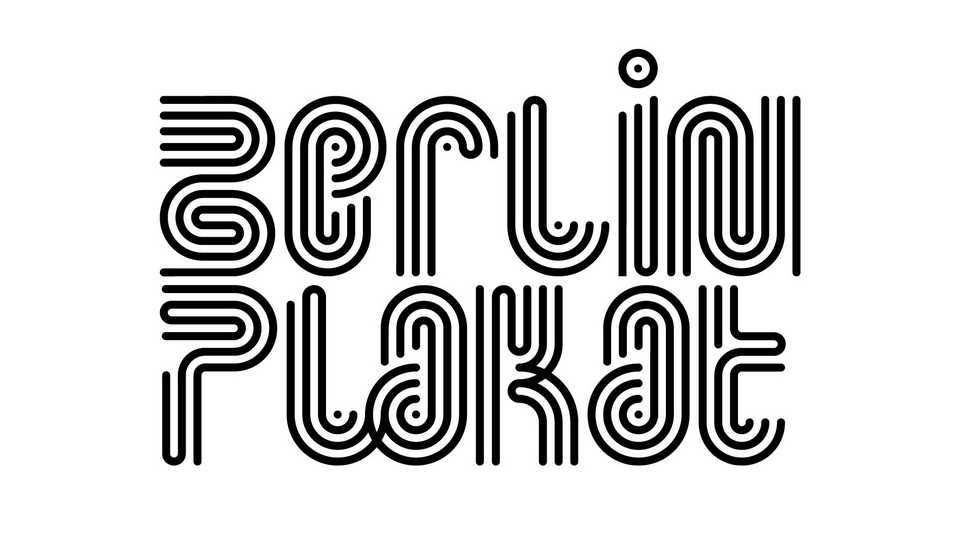
Download Zebra Stripes font, a geometric multiline display typeface with a touch of Art Déco based on the lettering grid. Zebra Stripes font is a unique solution for creative typography, branding, headings, posters, signage and more.
Designer: Monika Gause